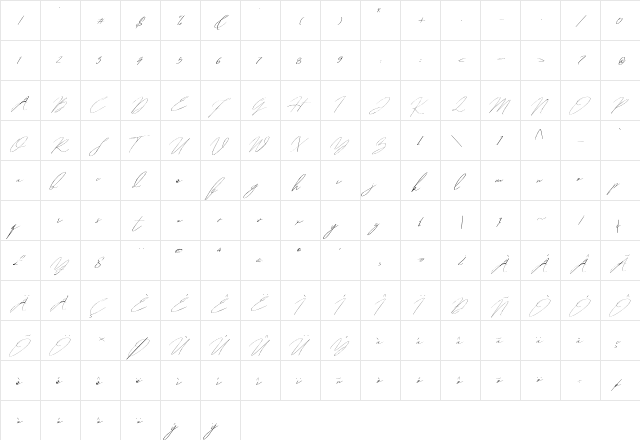
Hegomoni Signature Regular
| Foundry | Analogous Studio |
| Designer | Analogous Studio |
Design Context for Hegomoni Signature Typeface
Hegomoni Signature is a composed and adaptable typeface that performs quietly and consistently across a wide range of design contexts.